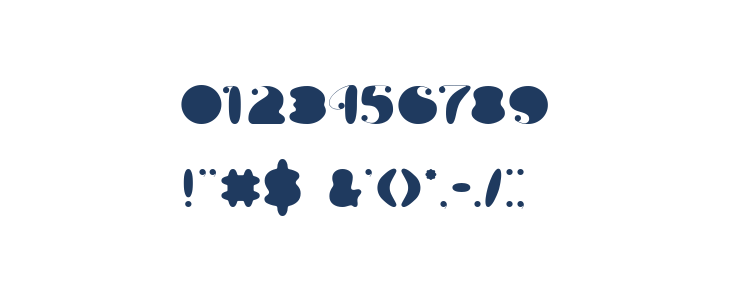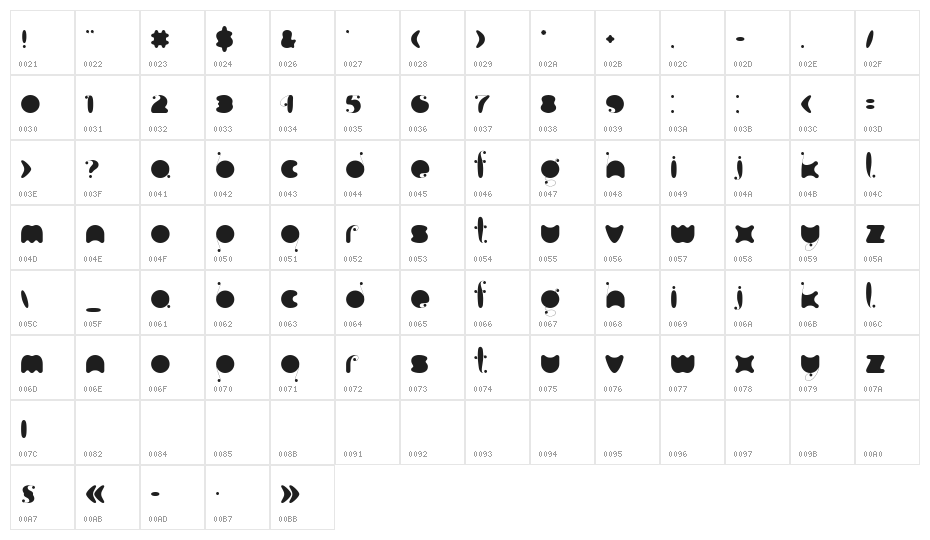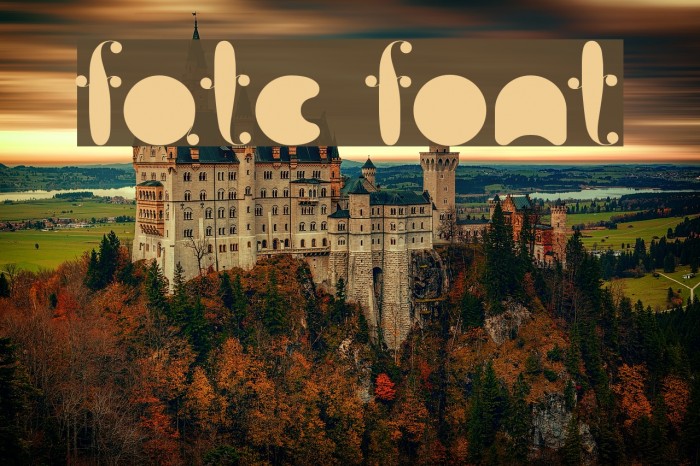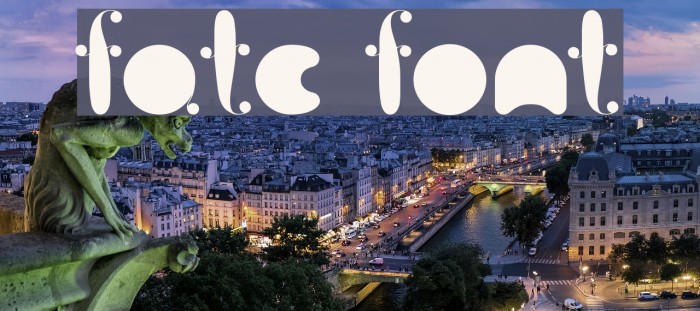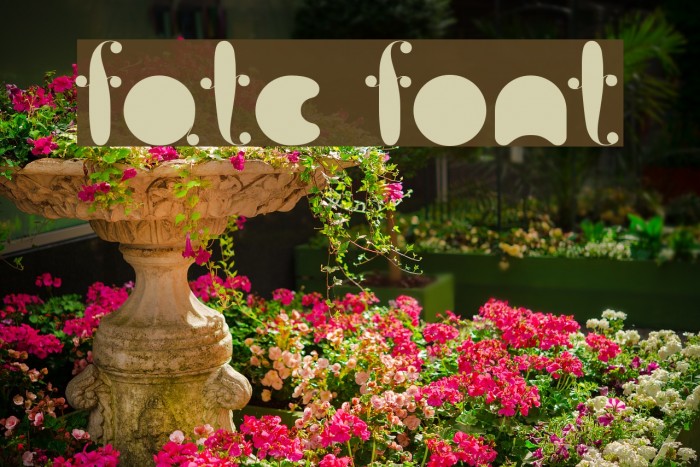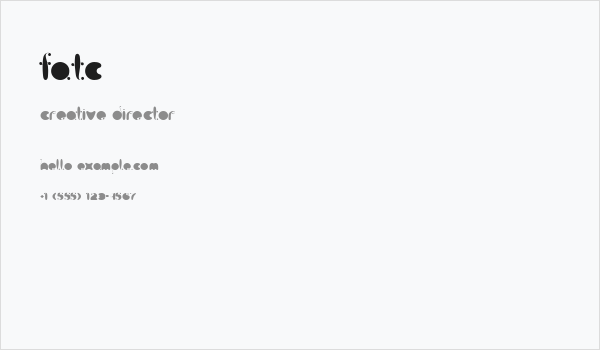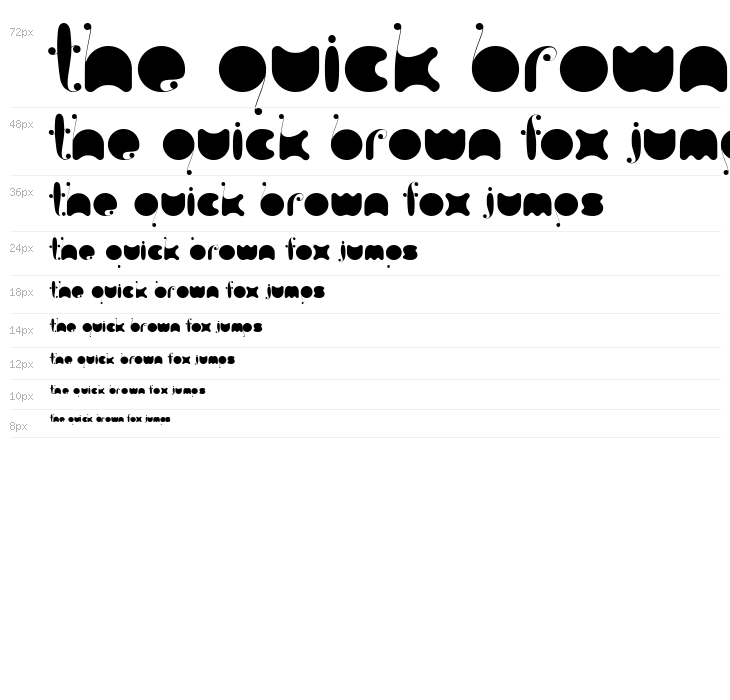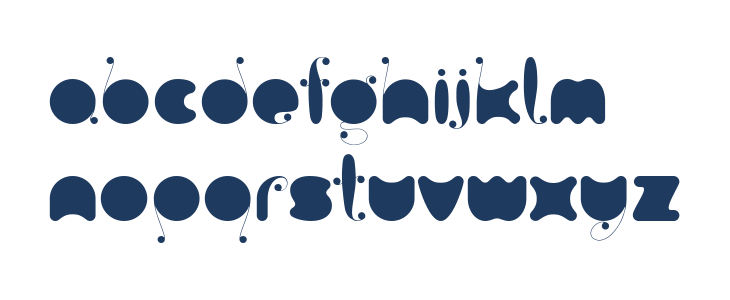
FatC Font
FatC Description
This font features a bold, playful design with a unique blend of circular and organic shapes. The characters are heavily rounded, creating a bubbly and whimsical appearance. Each letter is adorned with small, decorative curls and dots that add a touch of elegance and flair. The numbers and special characters follow the same playful style, making the font cohesive and visually appealing. Its boldness and distinctiveness make it stand out, perfect for creative and artistic projects.